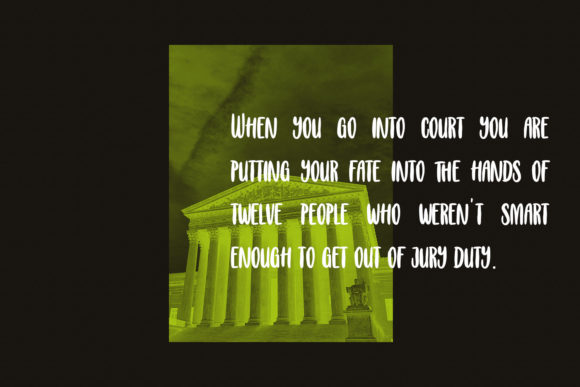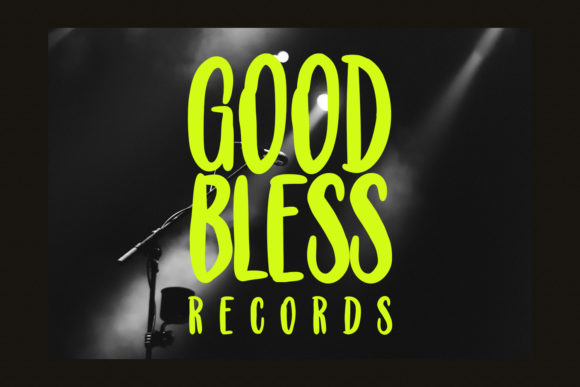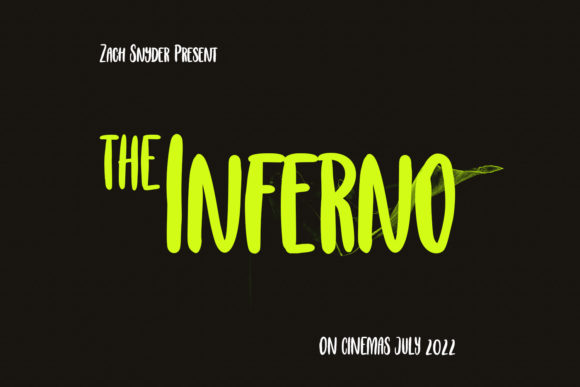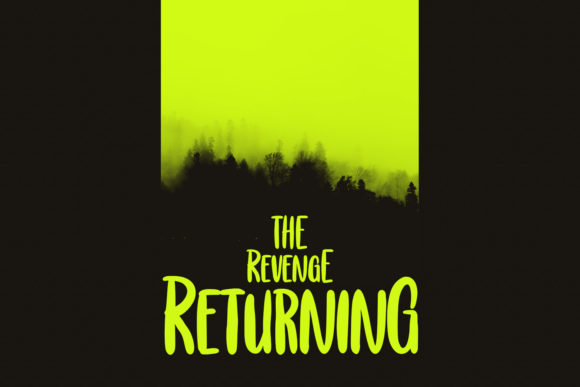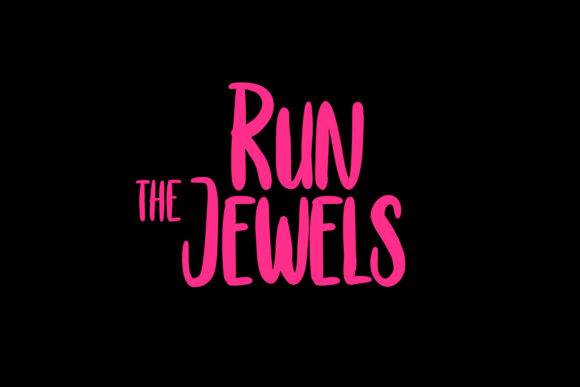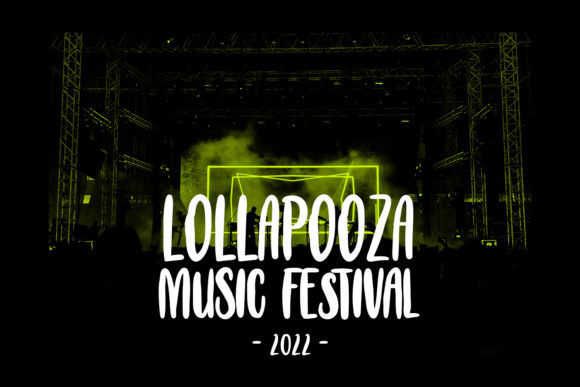
Introducing Crunchyes Font: The Playful and Friendly Display Font You Need
Are you tired of using the same old fonts for your designs? Do you want to add a touch of playfulness and friendliness to your creations? Look no further than Crunchyes Font! This adorable display font is sure to make your designs stand out from the crowd and leave a lasting impression on your audience.
What is Crunchyes Font?
Crunchyes Font is a modern, playful, and friendly display font that is perfect for designers and crafters looking to add a personal touch to their work. With its simple yet strong visual effect, this font is guaranteed to make your creations more appealing than any others. Whether you’re designing a logo, a poster, or a social media graphic, Crunchyes Font is the perfect choice.
Key Features of Crunchyes Font
- Playful and Friendly: Crunchyes Font has a fun and approachable vibe that’s perfect for designs that need a personal touch.
- Simple yet Strong: With its clean lines and simple design, Crunchyes Font packs a strong visual punch that’s sure to grab attention.
- Cute and Adorable: This font is perfect for designs that need a touch of cuteness, such as children’s products, nursery decor, or social media graphics.
- Versatile: Crunchyes Font can be used for a wide range of designs, from logos and posters to social media graphics and more.
Who is Crunchyes Font for?
Crunchyes Font is perfect for designers, crafters, and DIY enthusiasts who want to add a personal touch to their work. Whether you’re a professional designer or a hobbyist, this font is sure to inspire your creativity and help you create unique and eye-catching designs.
- Use it as a headline font: Crunchyes Font is perfect for headlines and titles, where its playful and friendly vibe can really shine.
- Experiment with different colors: Crunchyes Font looks great in a variety of colors, so don’t be afraid to experiment and find the perfect hue for your design.
- Pair it with other fonts: Crunchyes Font pairs well with a variety of other fonts, so feel free to get creative and find the perfect combination for your design.
Benefits of Using Crunchyes Font
So why should you choose Crunchyes Font for your designs? Here are just a few benefits of using this amazing font:
- Adds a personal touch: Crunchyes Font is perfect for designers who want to add a personal touch to their work.
- Increases engagement: With its playful and friendly vibe, Crunchyes Font is sure to grab attention and increase engagement.
- Versatile: Crunchyes Font can be used for a wide range of designs, from logos and posters to social media graphics and more.